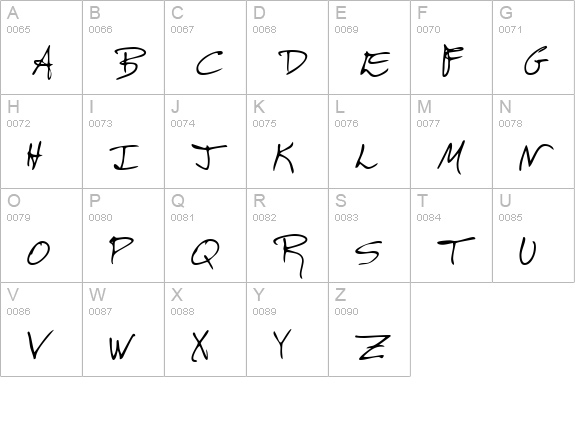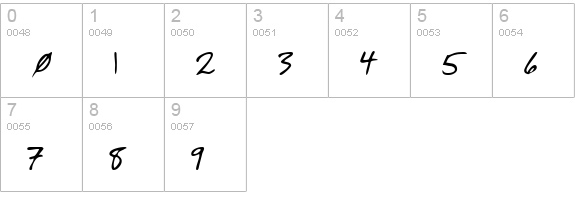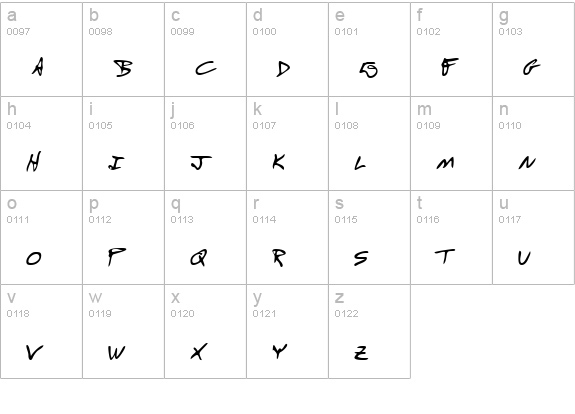
RoscoesHand Regular Font Details
RoscoesHand Regular is the standard, neutral variant in the RoscoesHand typeface family \xE2\x80\x94 well suited to general body text, paragraphs, and standard typographic work.
RoscoesHand Regular font is a charming and versatile typeface that exudes warmth and personality. With its casual handwriting style and smooth curves, this font is perfect for adding a personal touch to your designs. Whether you're creating invitations, cards, posters, or branding materials, RoscoesHand Regular will bring a unique and handmade feel to your projects. The best part? RoscoesHand Regular font is available for free download at FontsMarket.com. You can easily access this lovely font and start using it in your design projects right away. Don't miss out on the opportunity to enhance your creations with the beauty of RoscoesHand Regular font – download it now and let your creativity shine!